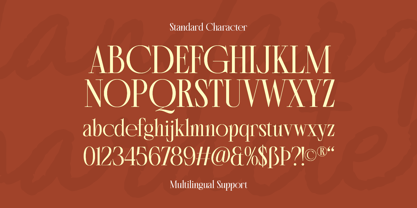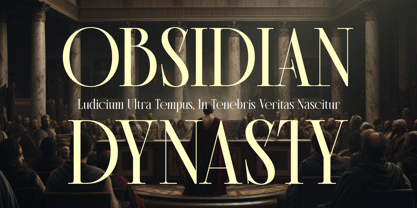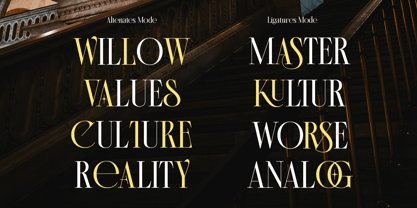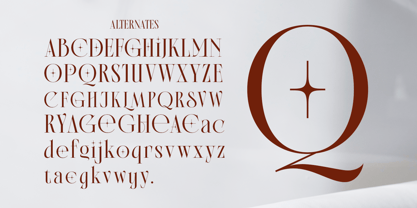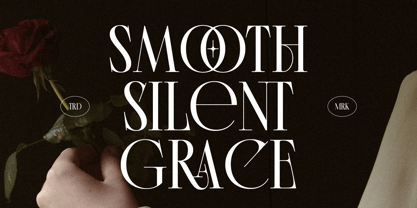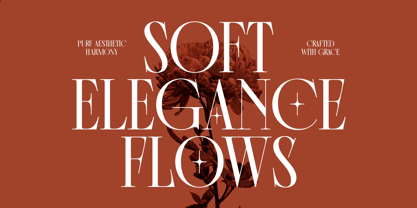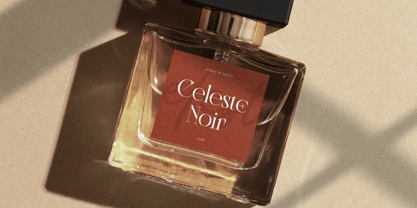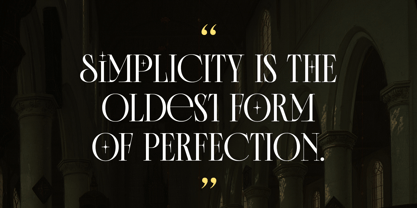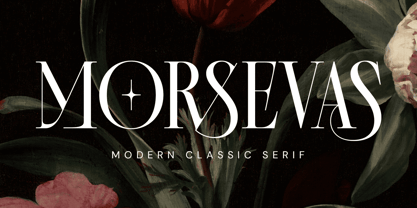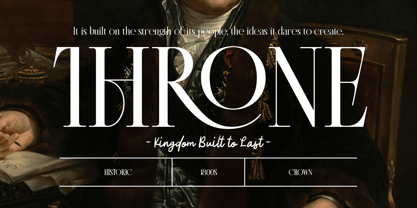
Morsevas
by Arterfak Project
The Morsevas Font Family was designed by Ahmad Ramzi Fahruddin and published by Arterfak Project. Morsevas contains 1 styles. More about this family
Morsevas is a refined modern serif typeface that blends timeless elegance with contemporary sophistication. Designed with high contrast strokes, graceful curves, and distinctive details, it creates a luxurious and artistic impression that feels both classic and fresh. Inspired by editorial typography and high-end branding aesthetics, Morsevas balances tradition with modern expression. Its carefully crafted letterforms maintain readability while delivering strong visual character, enhanced by elegant alternates and stylish ligatures that add depth and personality to your typography. Perfect for luxury branding, fashion visuals, quotes, labels, magazine layouts, packaging, and wedding design, Morsevas brings a sense of class and confidence to any project. It’s more than just a typeface—it’s a statement of refined style. Fonts featured : Uppercase Lowercase Numbers Punctuation Stylistic alternates Stylistic set 01-04 Ligatures Multilingual support.
Designers: Ahmad Ramzi Fahruddin
Foundry: Arterfak Project